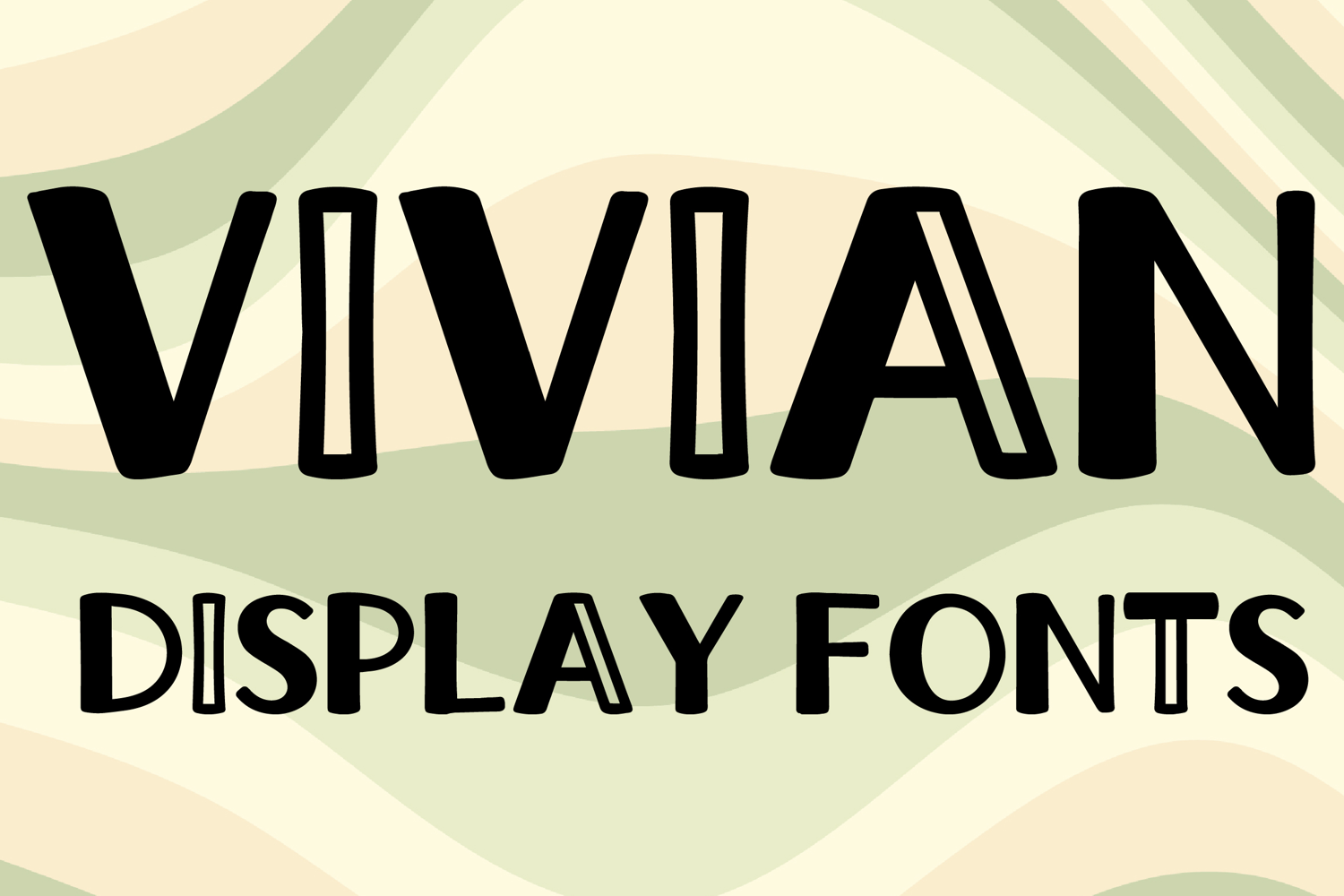
VIVIAN
VIVIAN is a bold display font with a modern handcrafted style and playful geometric charm. Its tall uppercase letterforms feature thick strokes, rounded corners, and distinctive inline cut details that create a fresh, stylish, and eye-catching look. Designed with uppercase letters A–Z and numbers 0–9, VIVIAN is perfect for logos, branding, posters, packaging, headlines, and social media graphics that need a fun and memorable statement.